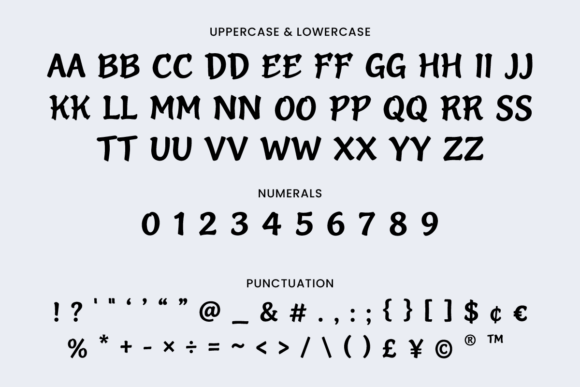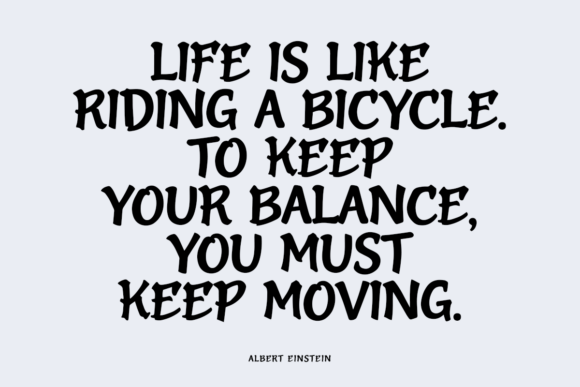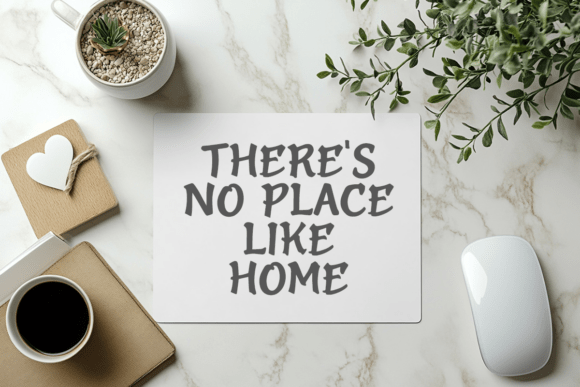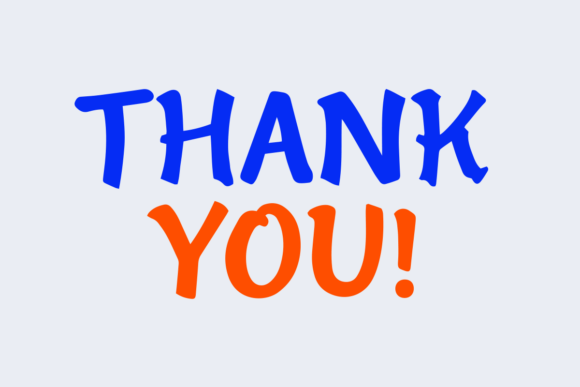
Introduction to Resonant Twist Font Font
Fonts play a crucial role in design, and the Resonant Twist Font font is a typeface that brings both character and versatility to any project. Whether you’re working on a branding project, a website, or a print design, the Resonant Twist Font font offers a unique style that can elevate your work.
Introducing Resonant Twist, a distinctive and expressive typeface crafted to add movement, character, and creative flair to your designs.
Combining modern style with artistic detail, this font delivers a bold yet versatile look that stands out across a wide variety of projects Perfect for branding, logos, headlines, social media graphics, packaging, invitations, posters, apparel designs, and more, Resonant Twist brings a dynamic visual presence while remaining stylish and easy to work with.
Key Features of Resonant Twist Font Font
Why Choose Resonant Twist Font Font?
The Resonant Twist Font font is more than just a typeface – it’s a design tool that helps you communicate your message with style and clarity. Its unique character set and versatile design make it suitable for a wide range of applications, from elegant invitations to bold headlines.
With its carefully crafted letterforms and balanced proportions, the Resonant Twist Font font ensures readability and visual appeal across all mediums.
What makes Resonant Twist Font font special?
The Resonant Twist Font font stands out with its unique design, exceptional readability, and versatility across various design applications.